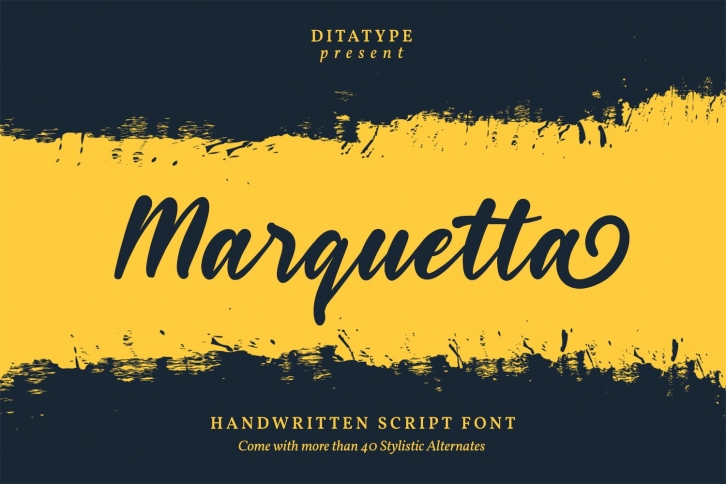
Marquetta Handwritten is a gorgeous font that was realeased on August 12, 2020. The font can be used in many style contexts and design environments. Perfect for invitations, magazines, websites, logos, and more! It was designed by Dita Type and the file size is 14.15 MB. Thanks for checking out this font!